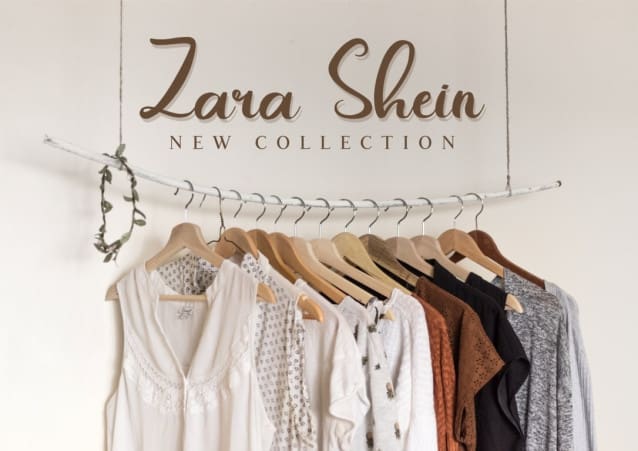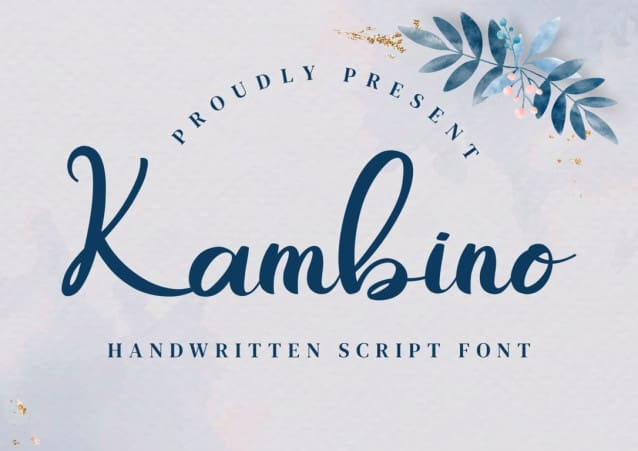
Kambino Font
Kambino Font, a dynamic script font that exudes a playful and modern vibe. Apply it to various design elements, such as quotes and websites, and take advantage of the accompanying clipart to effortlessly enhance your design process with joy and ease. Kambino features a diverse range of ligatures, adding an authentic handwritten feel to your creations.